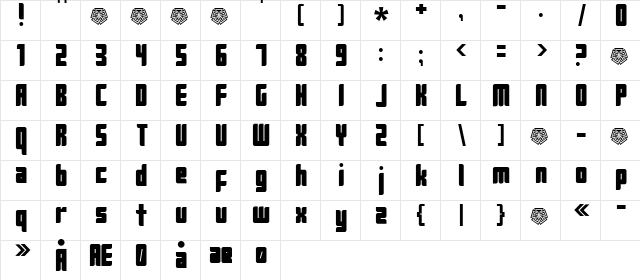
Push2Black Regular
Design Context for Push2Black Typeface
Push2Black is a composed and adaptable typeface that performs quietly and consistently across a wide range of design contexts.
Pro Tip: Pair Push2Black with a font of contrasting weight or personality to build a more expressive typographic hierarchy.